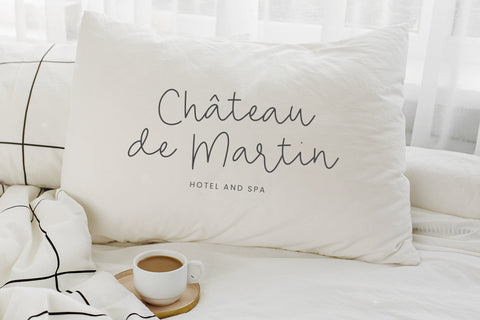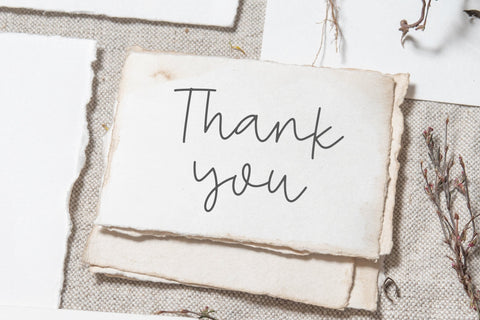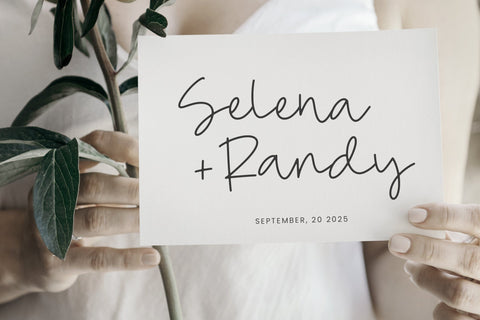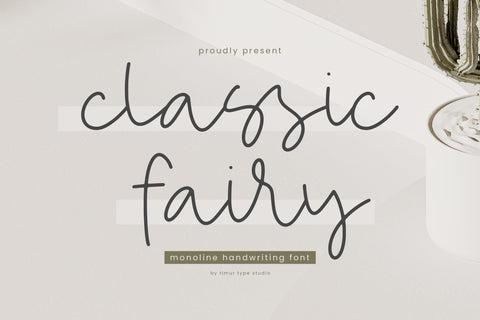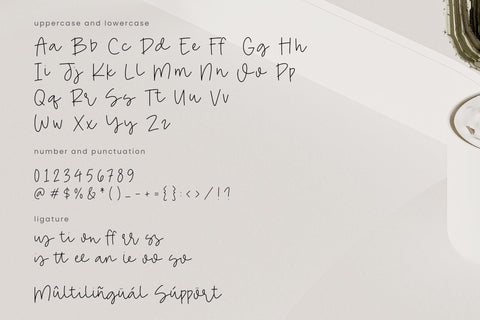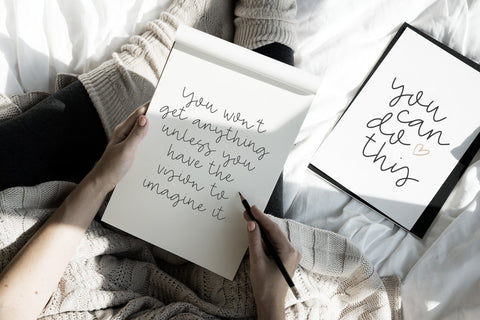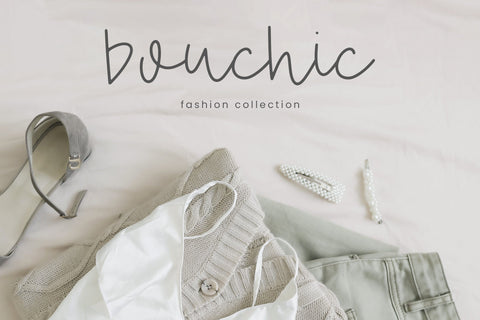
Classic Fairy - Monoline Handwriting Font
Classic Fairy is a Monoline Handwriting Font
This font showcases the art of monoline handwritten fonts – a symphony of elegance and charm. Let charming threads weave a tale of elegance in your designs, where every curve whispers sophistication and timeless appeal
- Ligature
Classic Fairy Font also supports multilingualism.